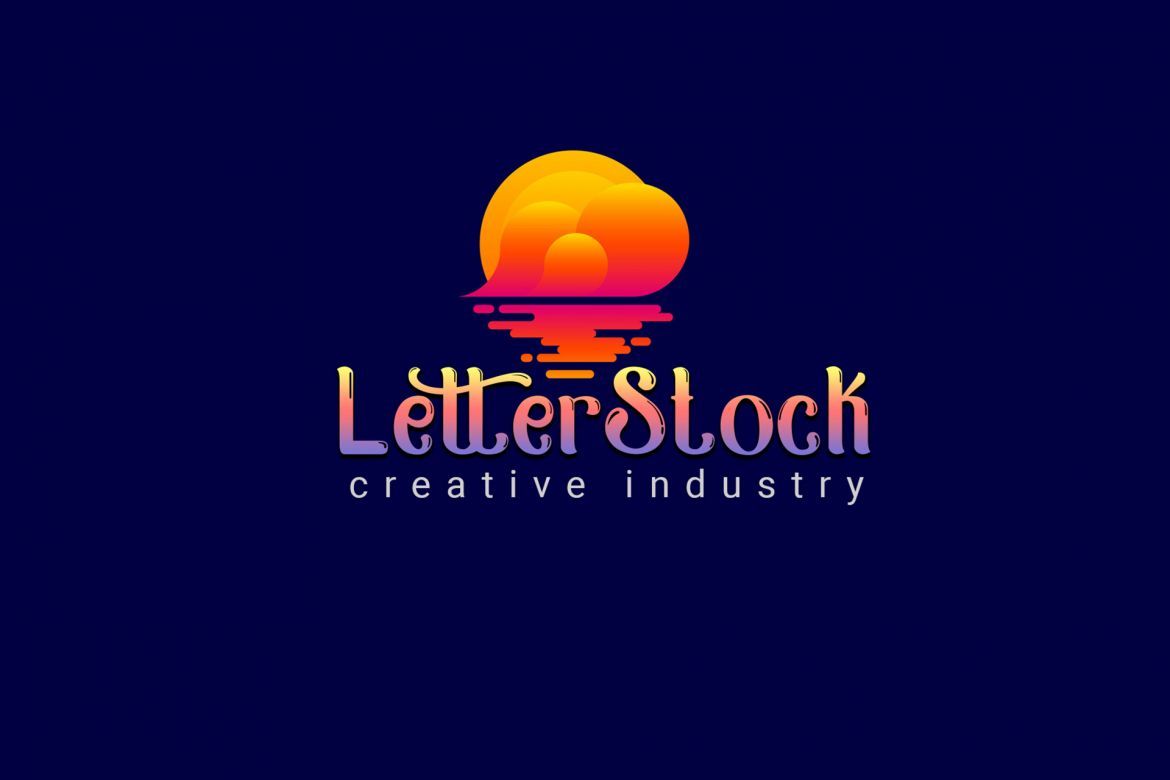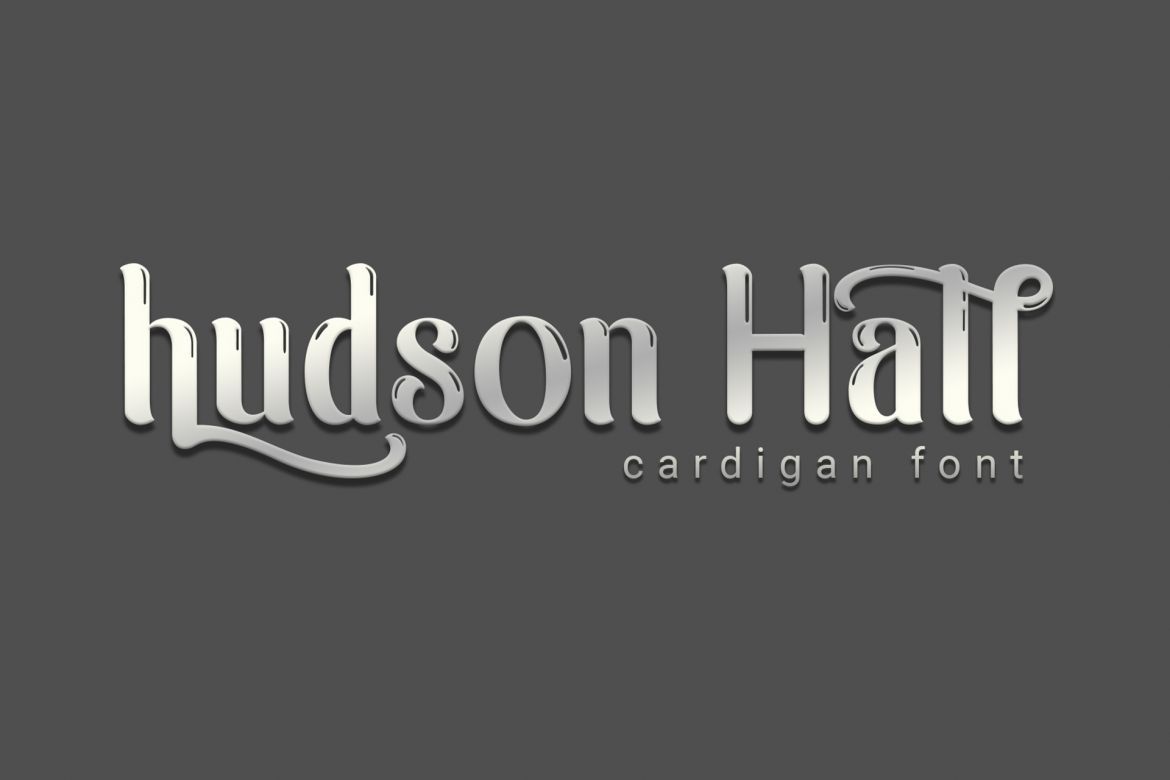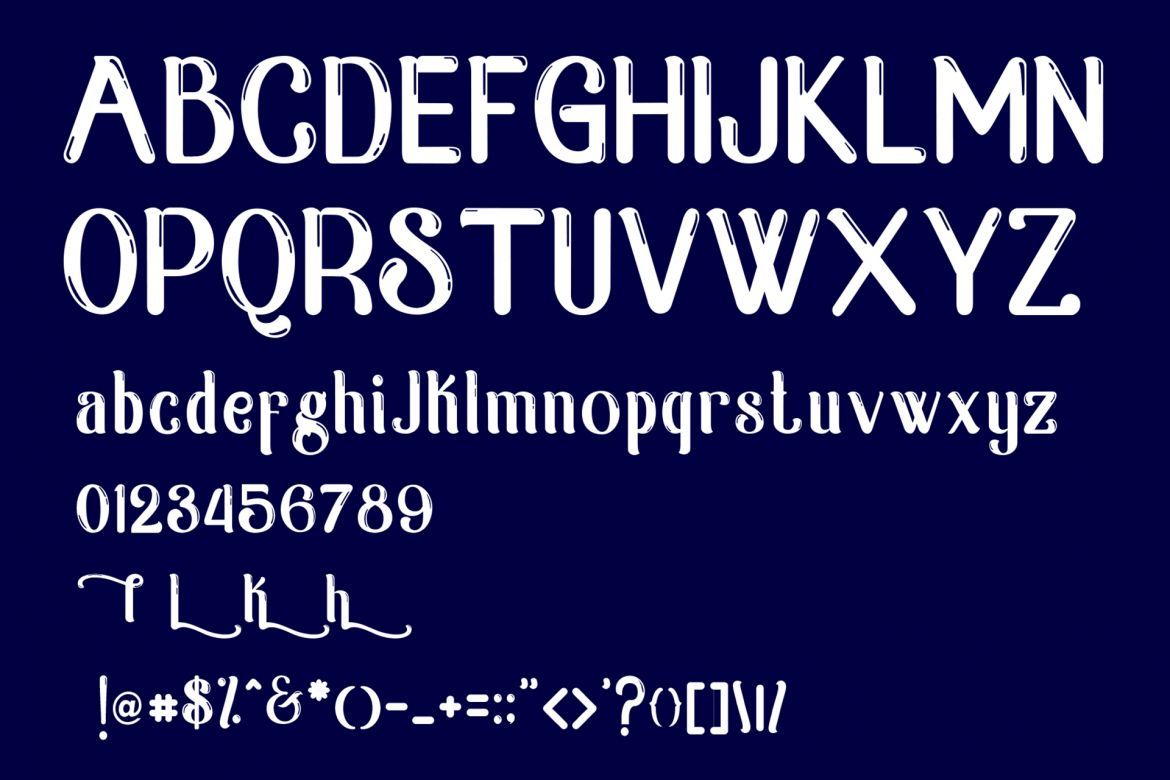
Cardigan Display Font
-- Cardigan font --
Cardigan is a sans font family and sophisticated display font family. Inspired by a retro swimming pool poster and i try to combine it with a hand drawing concept. it's perfect for you to show your design or product in professional way.
USE Cardigan works great in any branding, logos, magazines, films, poster, flyer, tees design,etc.
• original hand drawn font
• perfect to use it for any design purpose
• perfect to use it on decorative design